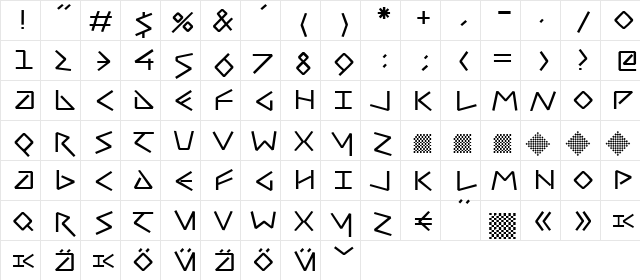
UncialHundred Regular
Design Context for UncialHundred Typeface
UncialHundred offers clean, dependable letterforms without strong stylistic allegiance, making it a practical choice for designers who need flexibility.